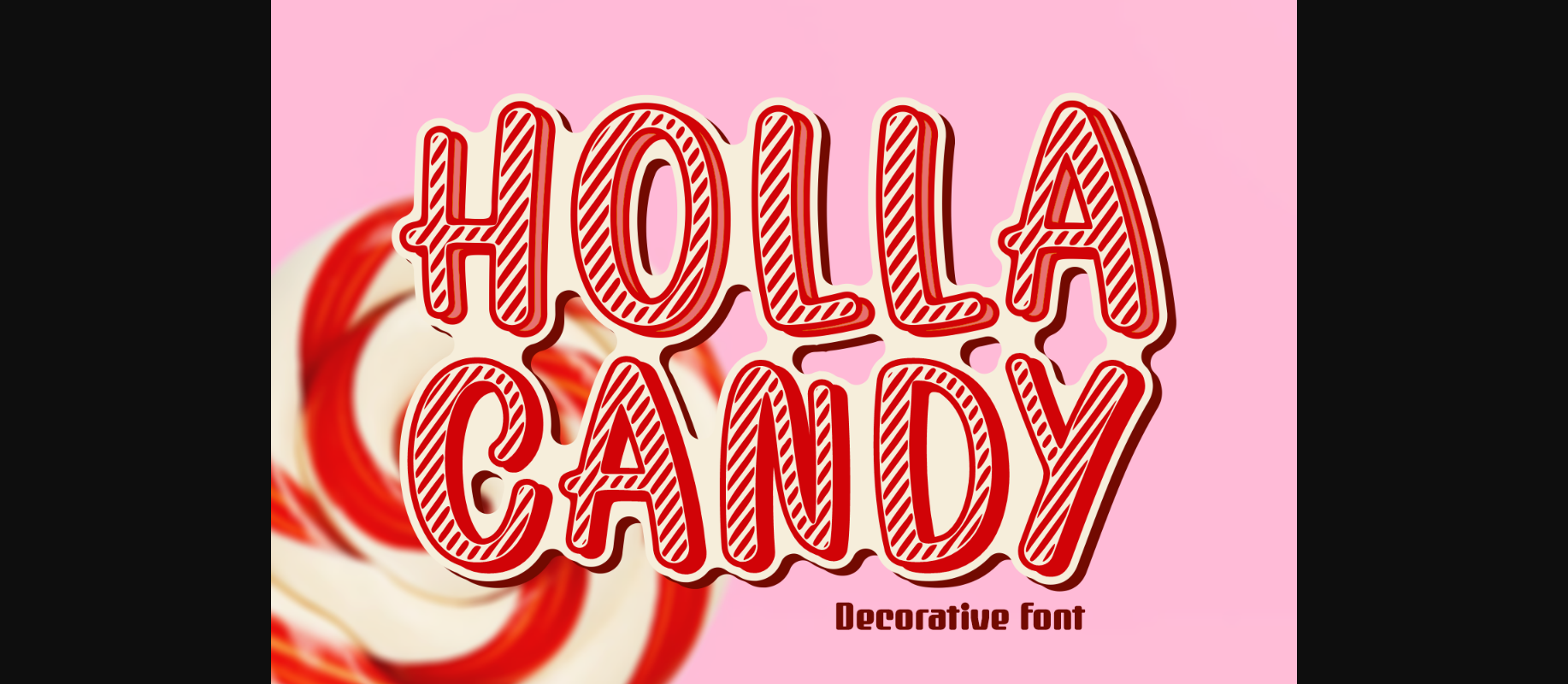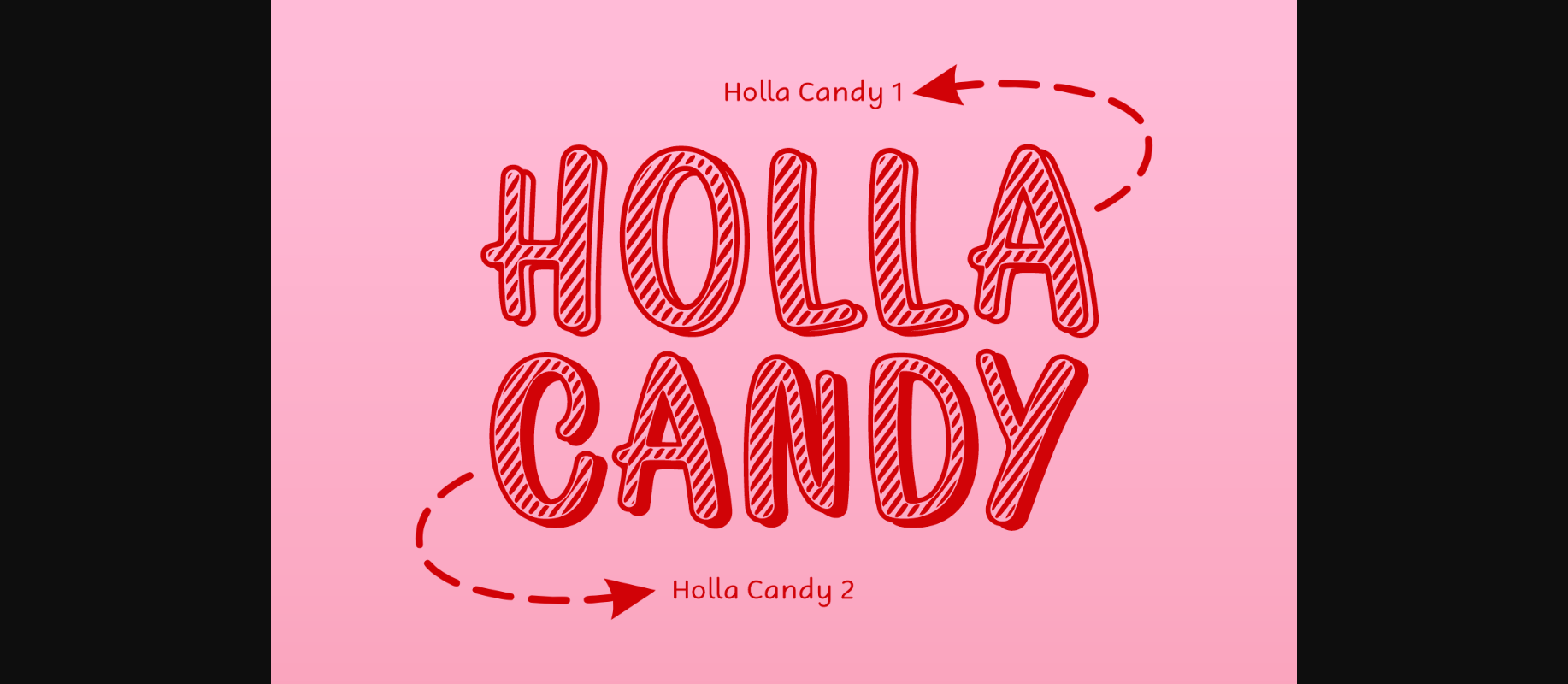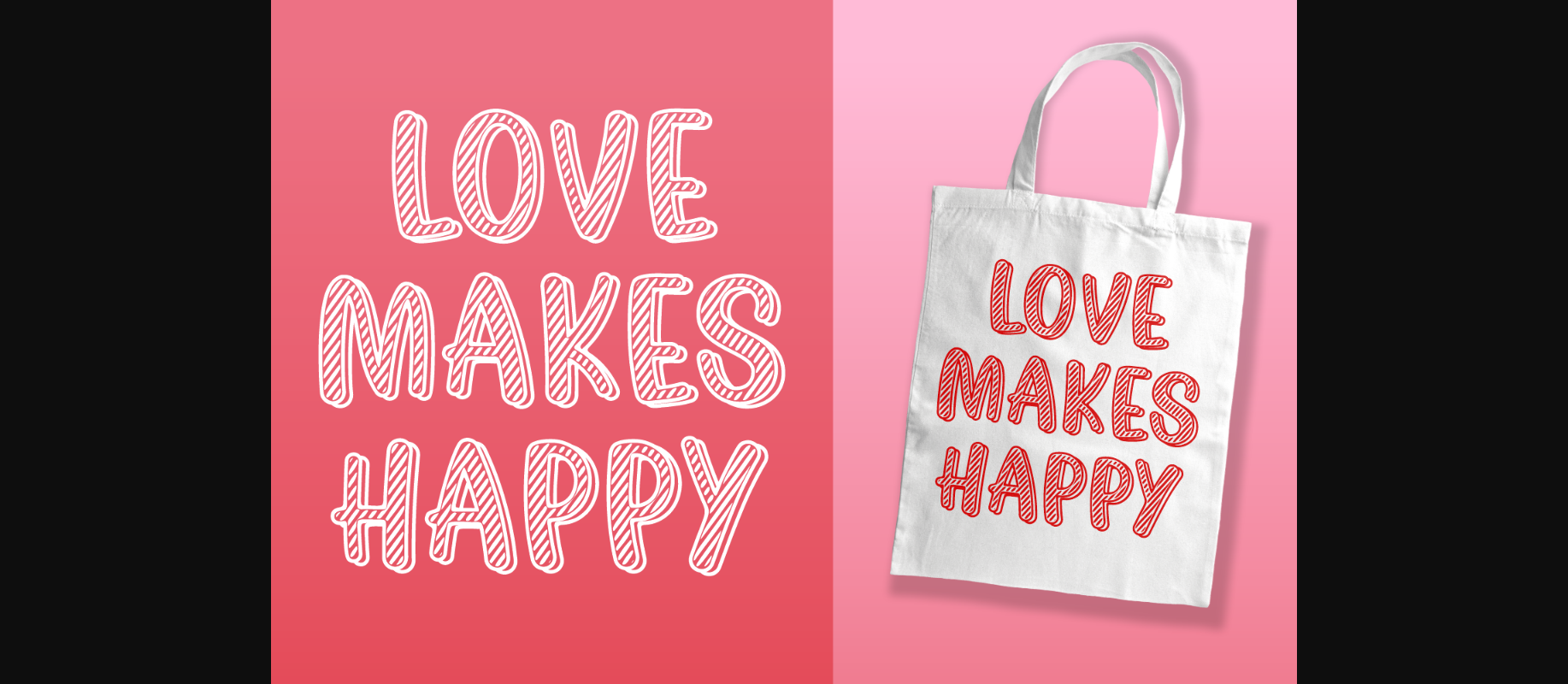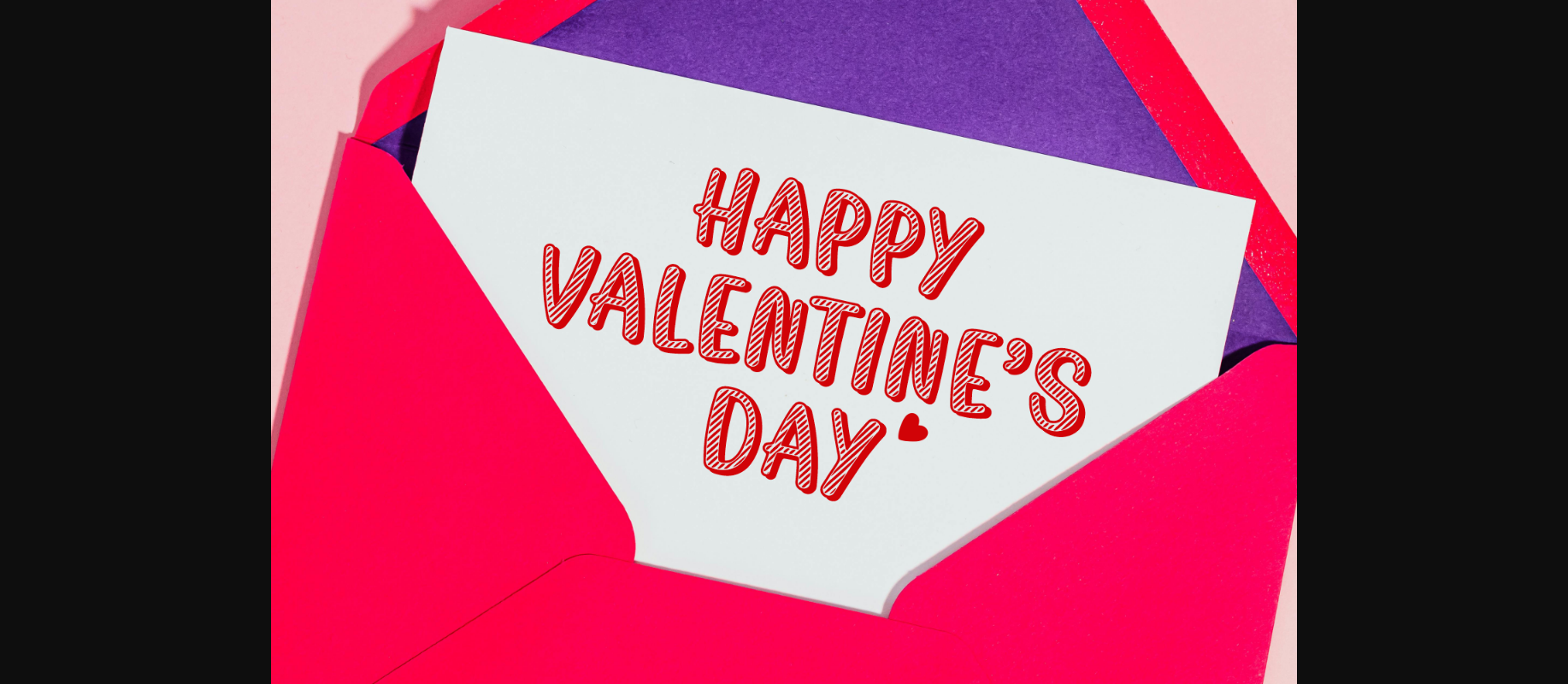
About Holla Candy Font
Introducing “Holla Candy” – a delightful decorative font featuring letters adorned with charming candy cane stripes. This sweet and playful typeface adds a festive touch to your designs, making it perfect for holiday-themed projects, invitations, and creative endeavors that need a dash of sweetness. Let your text come to life with the whimsical charm of Holla Candy, where each letter is a treat for the eyes.